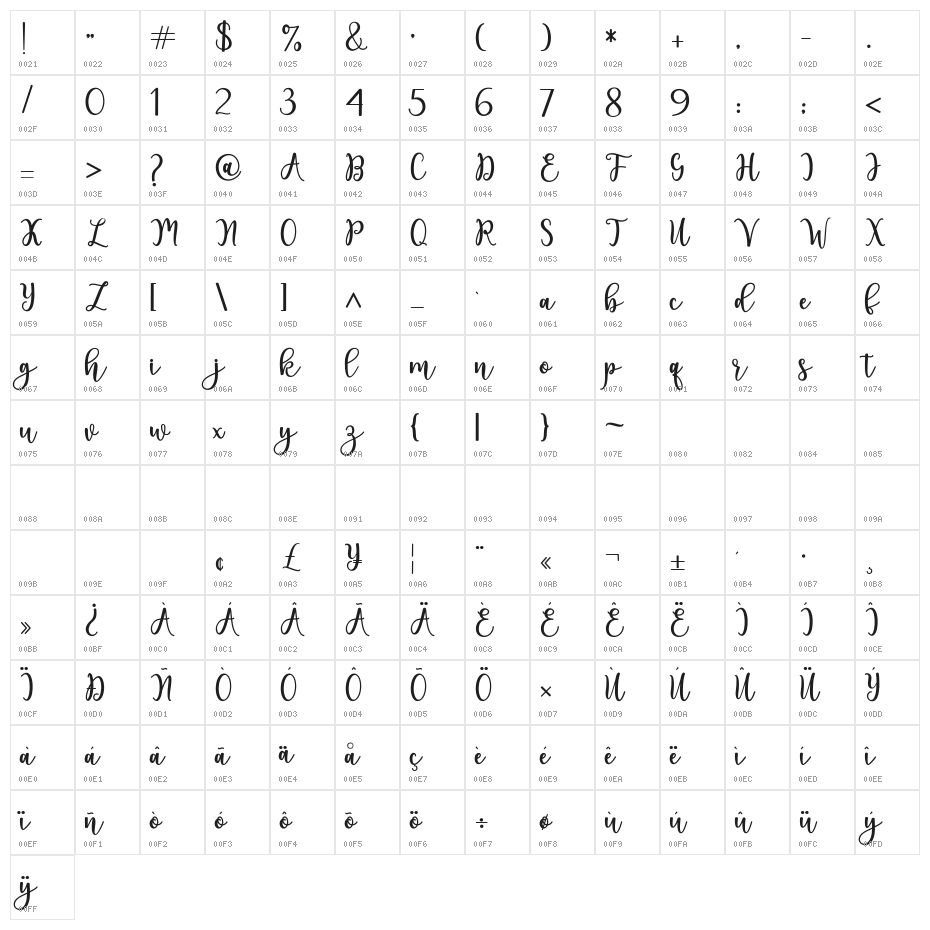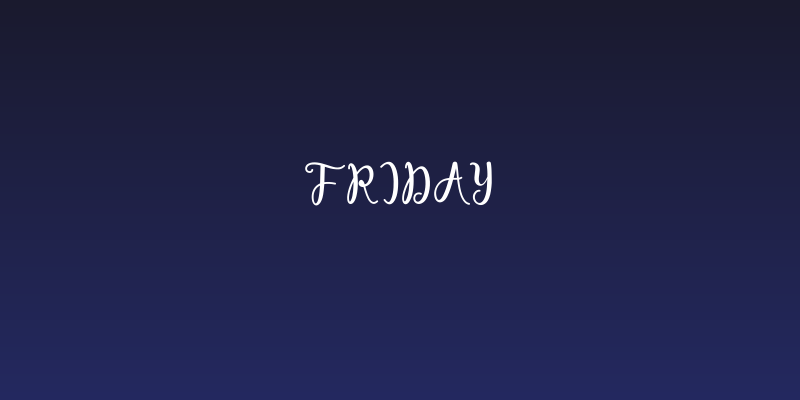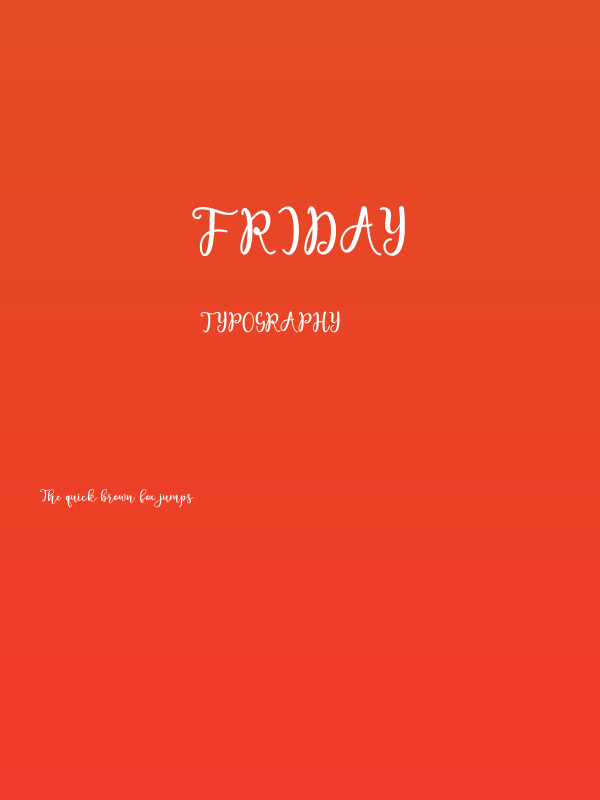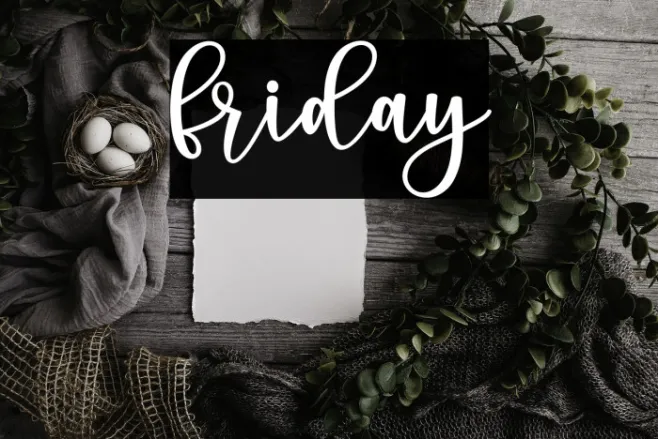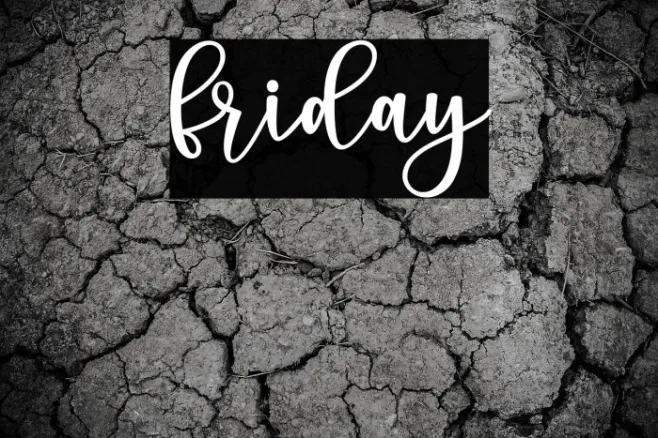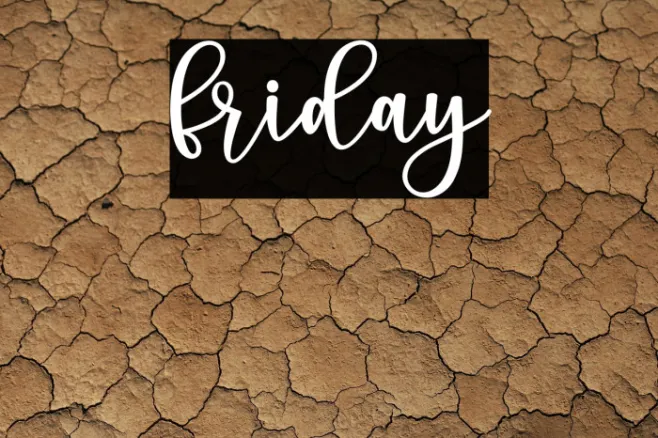
friday Font
friday Description
This font features a lively and flowing script style, characterized by its elegant and connected letterforms. The uppercase letters exhibit a graceful, looping design, while the lowercase letters maintain a consistent flow with smooth transitions. The numerals are clear and legible, complementing the overall aesthetic. Special characters are integrated seamlessly, enhancing the font's versatility. The strokes are bold, providing a strong visual impact, and the overall design exudes a sense of modern elegance with a touch of playfulness.